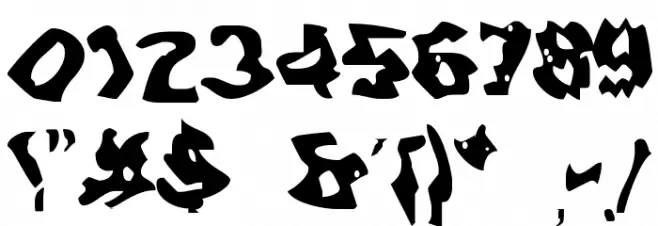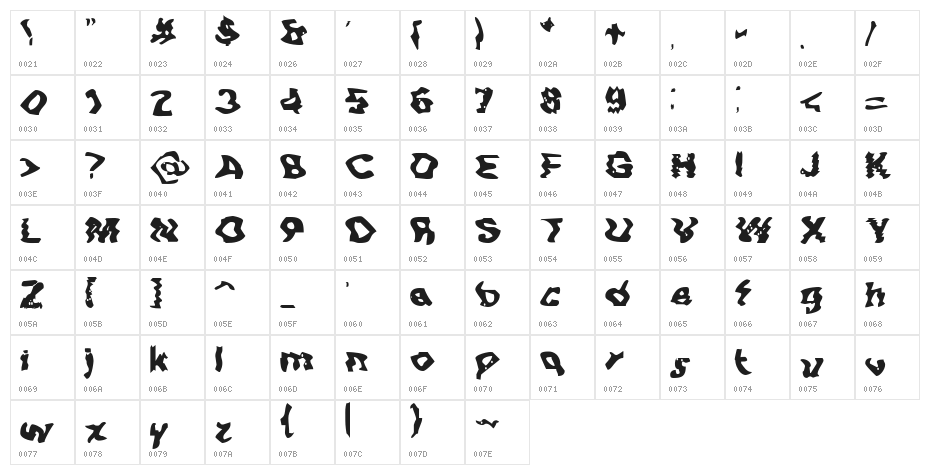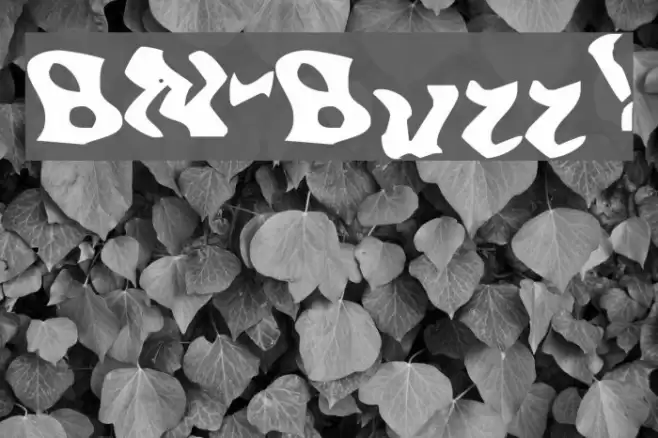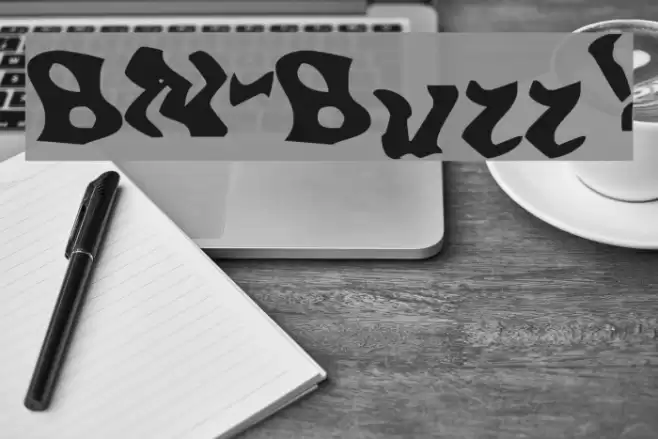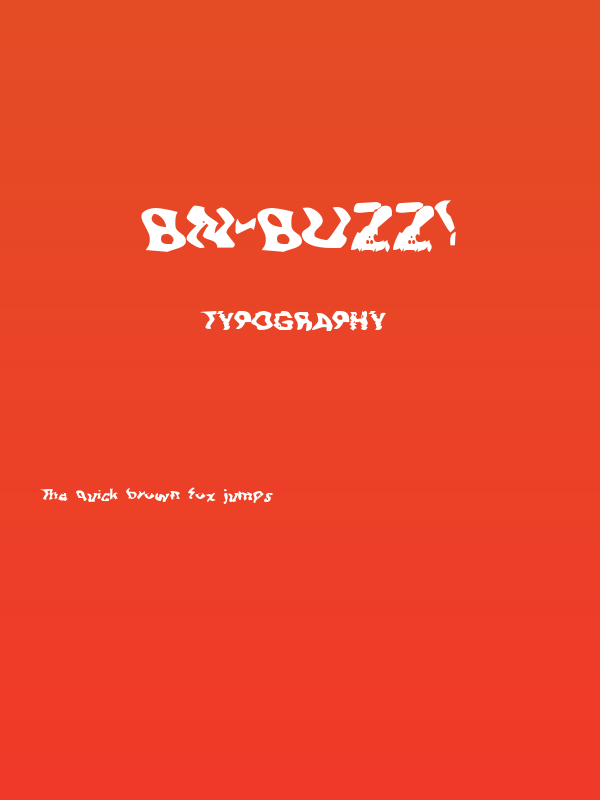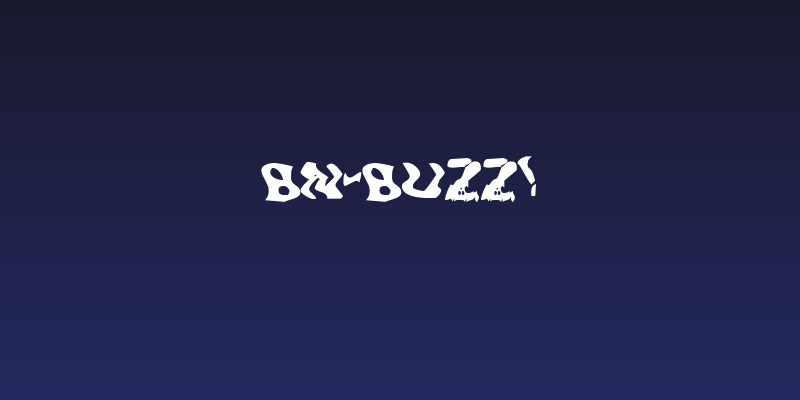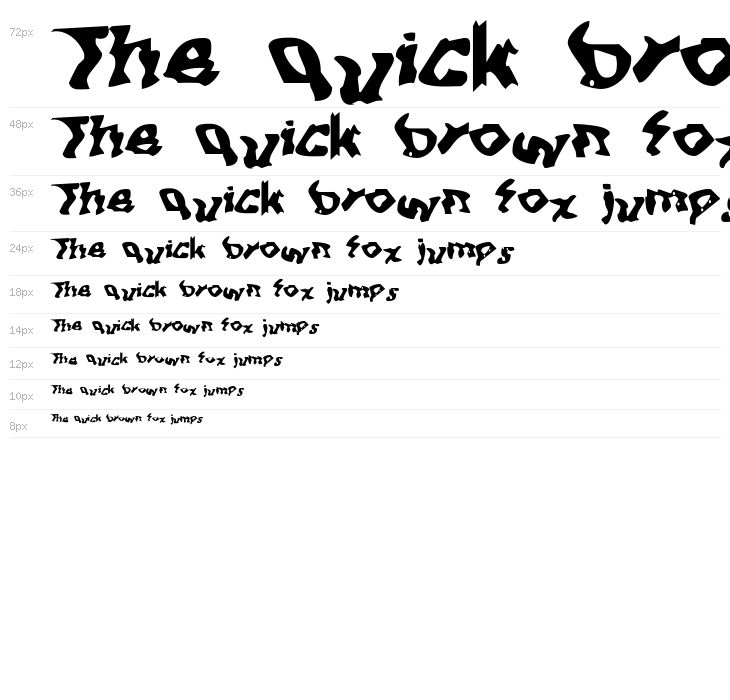
BN-Buzz! Font
BN-Buzz! Description
This font features a bold and dynamic style with a highly irregular and jagged appearance. The characters are heavily stylized, with sharp edges and a sense of movement, creating a chaotic yet artistic look. The uppercase and lowercase letters, as well as numbers and special characters, all share this distinctive, edgy design. The font's unique aesthetic makes it stand out, offering a visually striking option for creative projects. Its boldness and irregularity suggest a sense of rebellion and energy, making it suitable for designs that aim to capture attention and convey a sense of excitement or unpredictability.
| Overall Style | Modern, Edgy |
| Proposed Projects | Ideal for music album covers, edgy posters, streetwear branding, or any project needing a rebellious and energetic vibe. |